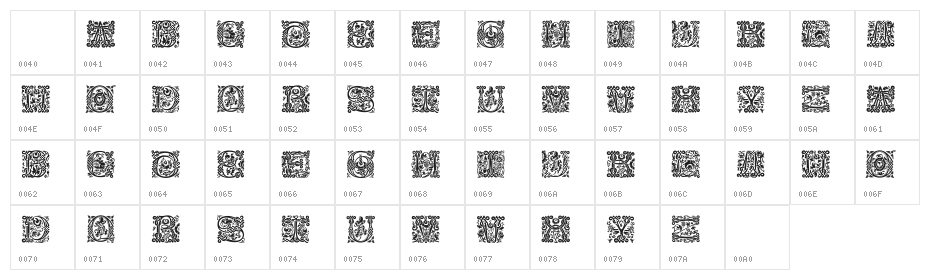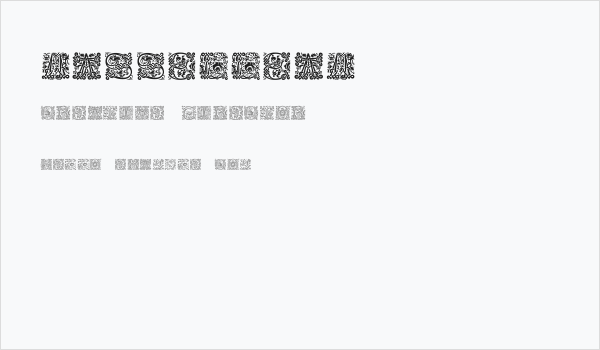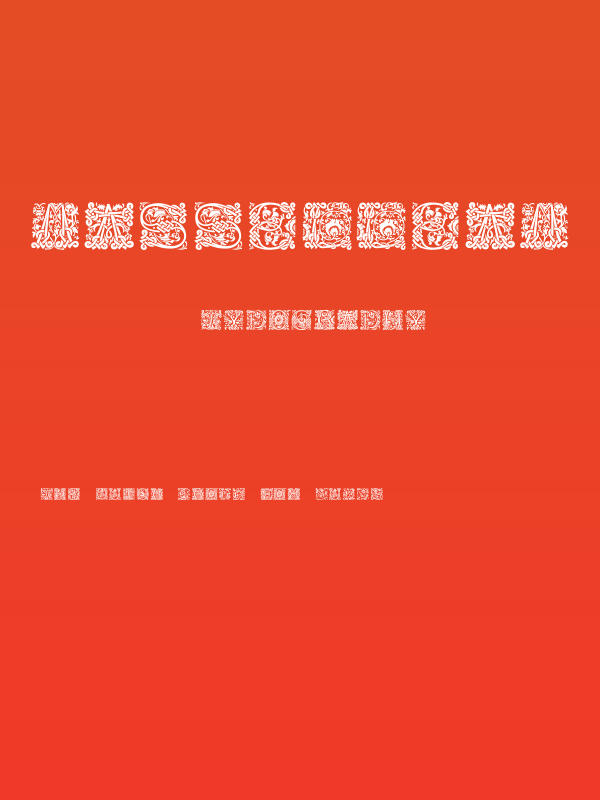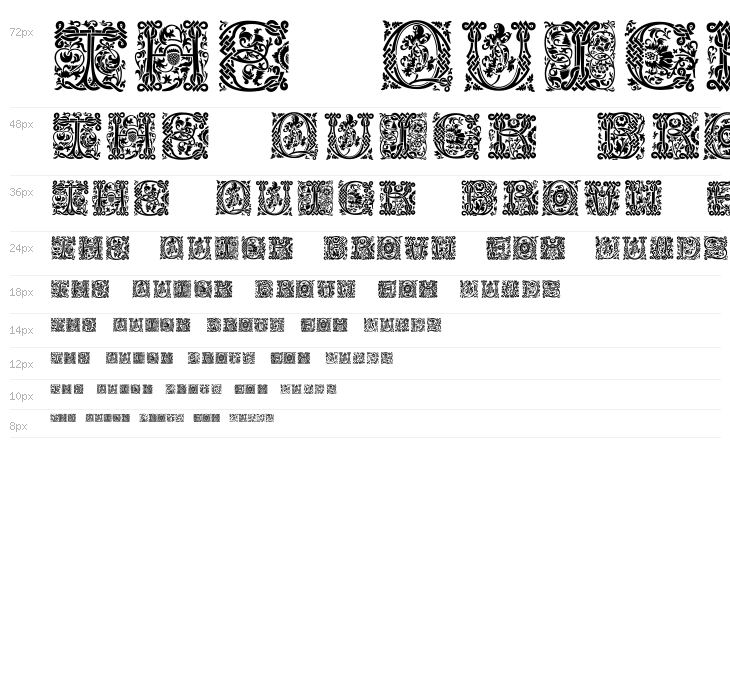
MasselleAM Font
MasselleAM Description
This font is a highly decorative and intricate design, featuring elaborate floral and ornamental patterns within each character. The letters are encased in square-like shapes, giving them a uniform appearance while the detailed embellishments add a sense of elegance and complexity. The style is reminiscent of vintage or Victorian-era typography, making it ideal for projects that require a touch of sophistication and historical charm. Each character is unique, with swirling motifs and flourishes that create a visually captivating effect.
| Proposed Projects | Ideal for wedding invitations, vintage-themed posters, book covers, and decorative signage. |